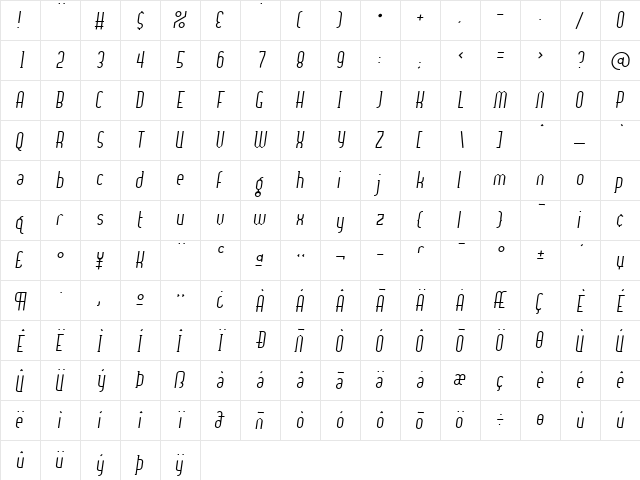
Centrifuge Light
Design Context for Centrifuge Typeface
Centrifuge is a composed and adaptable typeface that performs quietly and consistently across a wide range of design contexts. Its slender proportions lend an understated elegance to any composition.